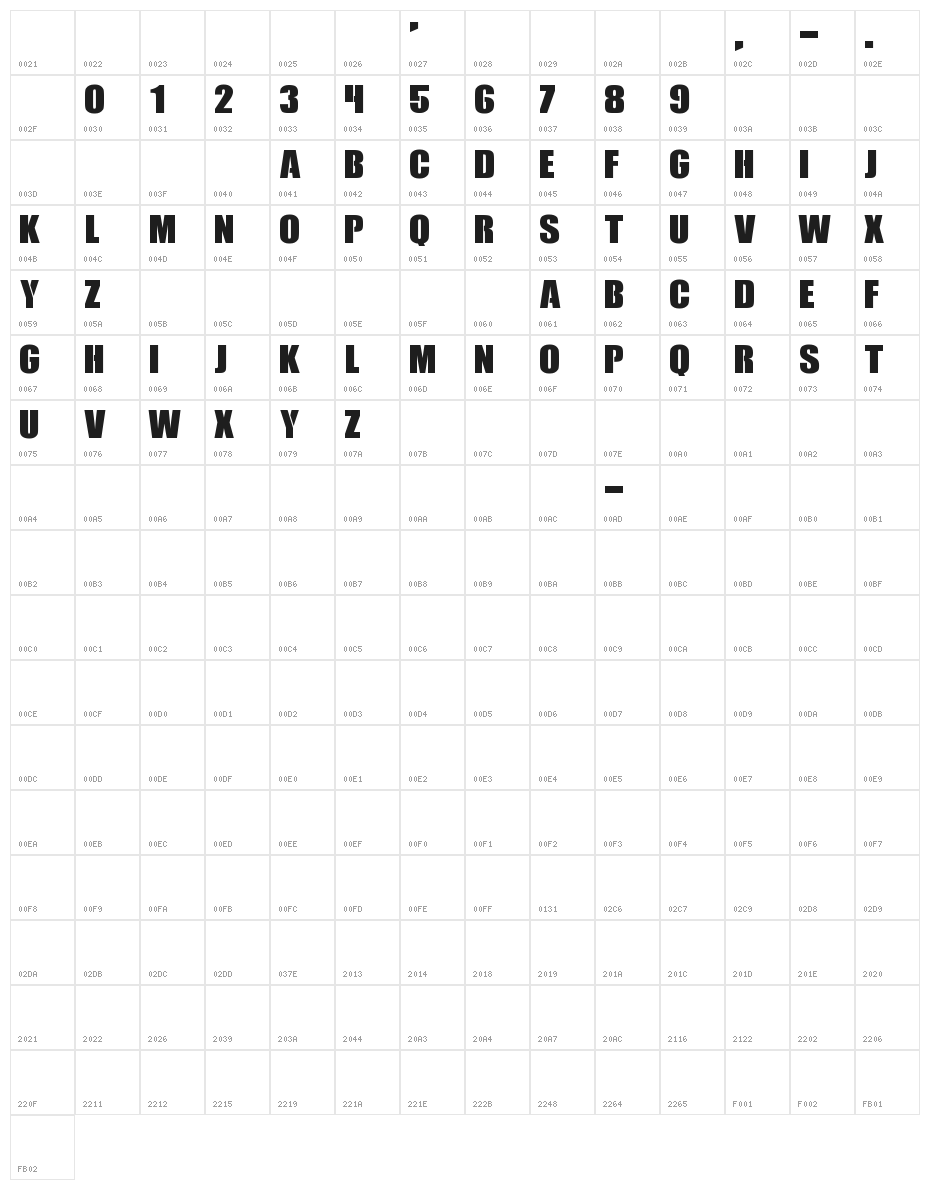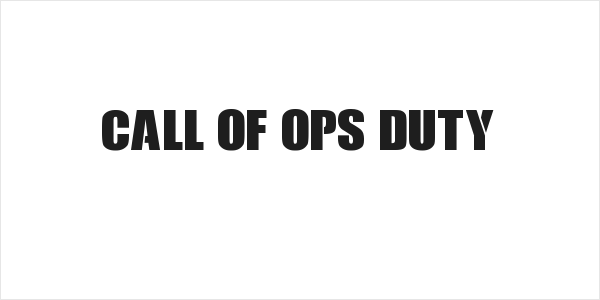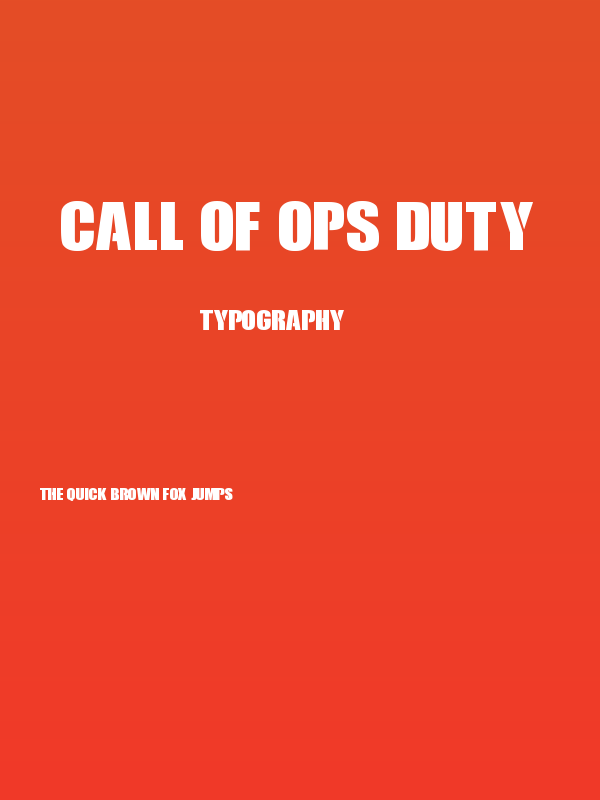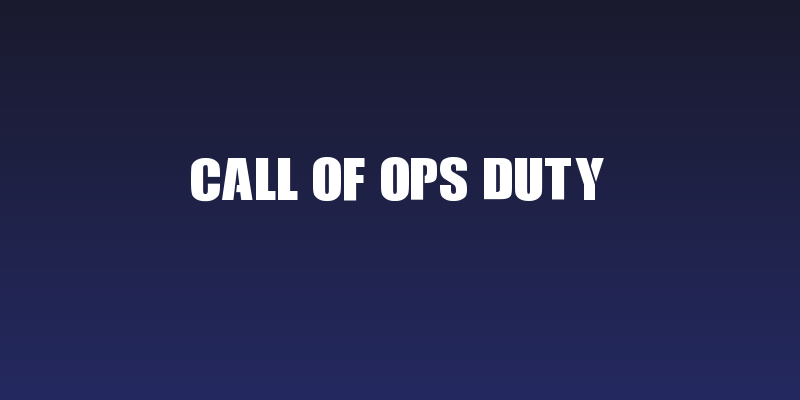
Call Of Ops Duty Font
Call Of Ops Duty Description
This font is a bold, impactful typeface characterized by its heavy weight and strong presence. The letters are uniformly thick, with minimal contrast between strokes, giving it a powerful and commanding appearance. The uppercase letters are particularly striking, with a blocky, geometric style that conveys strength and stability. The numbers and special characters maintain this bold aesthetic, ensuring consistency across all elements. The font's design is straightforward and assertive, making it ideal for applications where attention and emphasis are required.
| Proposed Projects | Ideal for use in video game titles, movie posters, branding for sports teams, or any project requiring a bold and commanding visual presence. |